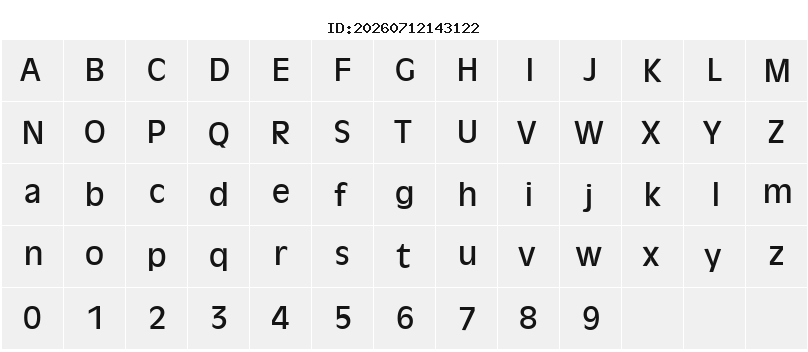
About Ravenna-Serial-Medium.ttf
Ravenna-Serial-Medium.ttf is a modern, elegant sans-serif font designed for ultimate readability and visual harmony. Perfect for branding, headlines, web design, and print materials.